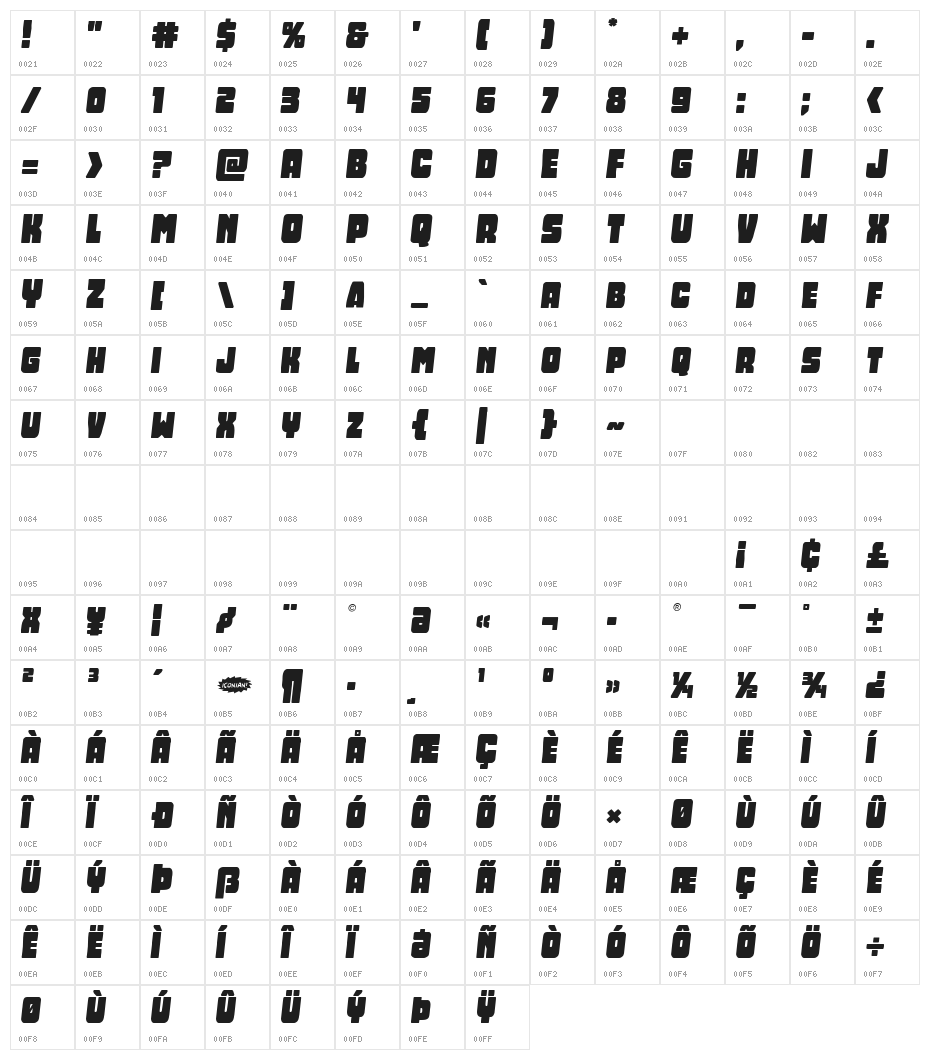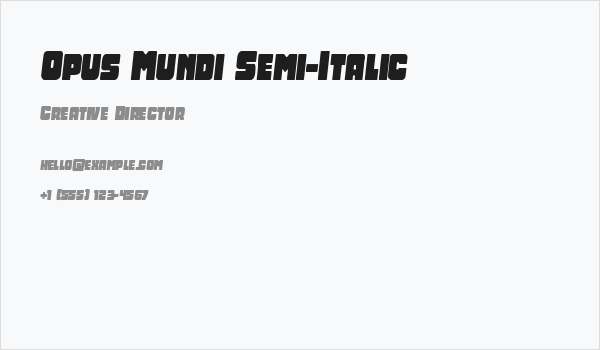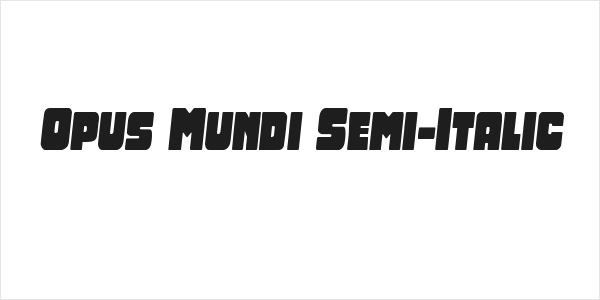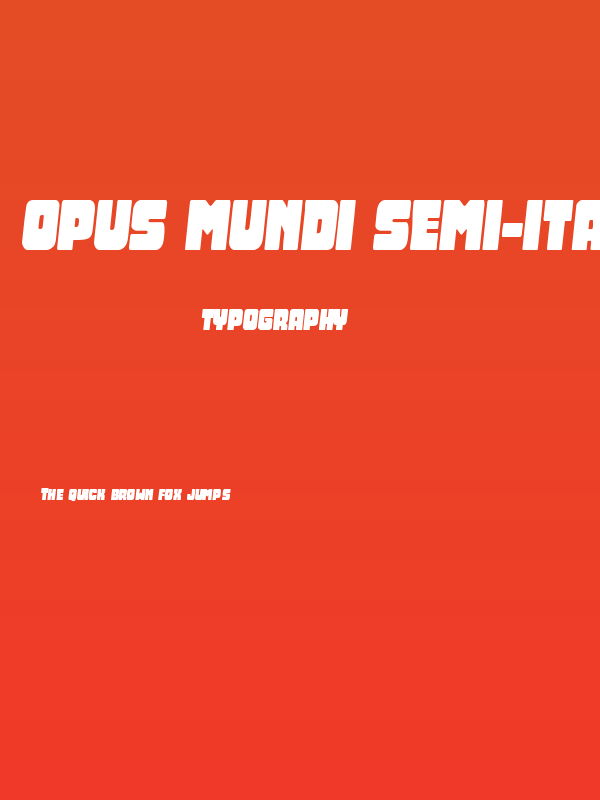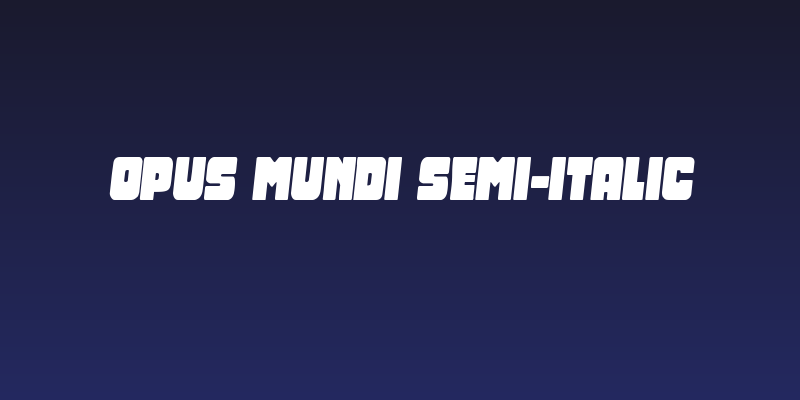
Opus Mundi Semi-Italic Font
Opus Mundi Semi-Italic Description
This font features bold, geometric letterforms with a strong presence. The characters are designed with a semi-italic slant, giving them a dynamic and forward-moving appearance. The strokes are thick and consistent, creating a robust and impactful look. The uppercase and lowercase letters maintain a uniform style, with slightly rounded edges that soften the overall boldness. The numbers and special characters follow the same design principles, ensuring cohesion across all elements. This font is ideal for making a statement, with its striking and modern aesthetic.
| Proposed Projects | Ideal for branding, posters, headlines, and any project requiring a bold, modern typeface. |